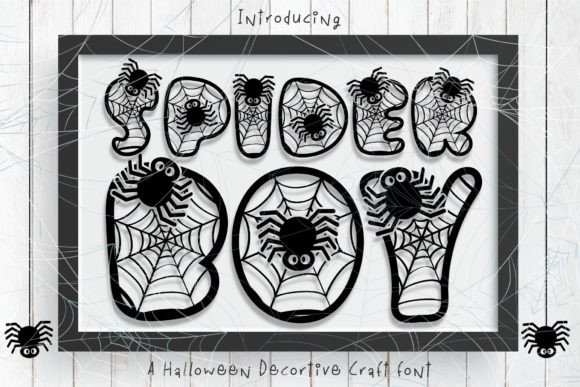
Introducing Spider Boy Font - the ultimate choice for all your Halloween crafting needs! Created by the renowned Nobu Collections, this decorative font is a captivating blend of elegance and arachnid-inspired charm. Get ready to embark on a thrilling design journey with Spider Boy, where every letter weaves intricate web-inspired characters that will leave you spellbound.
With Spider Boy Font, your Halloween crafts will reach new heights of creativity. This unique typeface is specifically designed to capture the mystique of the season, allowing you to craft spooky delights and eerie designs that will send shivers down your spine. Imagine creating invitations that beckon guests into a haunted mansion, or labels that transform ordinary treats into wickedly delightful surprises.
Unleash your imagination and explore the endless possibilities that Spider Boy Font offers. Its distinctive web-inspired characters lend an air of intrigue to any project, making it the perfect choice for adding a touch of enchantment to your creations. Whether you're designing posters for haunted attractions or creating spine-chilling social media graphics, Spider Boy Font will ensure your message stands out with its mesmerizing presence.
But Spider Boy Font isn't just about aesthetics - it's also a highly functional typeface that excels in text wrapping. Its carefully crafted characters seamlessly wrap around your words, adding a dynamic and visually captivating element to your designs. Say goodbye to boring, traditional fonts and embrace the excitement of Spider Boy Font as it wraps your text in a web of creativity and style.
Designed with the user in mind, Spider Boy Font is incredibly versatile and user-friendly. Its easy-to-read characters ensure that your messages are conveyed effortlessly, while its compatibility with various design software makes it accessible to designers of all levels. Whether you're a seasoned professional or just starting your design journey, Spider Boy Font will empower you to create stunning visuals that leave a lasting impression.
So, why wait? Embrace the captivating elegance of Spider Boy Font and elevate your Halloween designs to new heights. Let the enchanting web-inspired characters mesmerize your audience and bring your imagination to life. With Spider Boy Font, you have the power to transform ordinary projects into extraordinary works of art. Get ready to craft, create, and captivate with Spider Boy Font - the best font for text wrapping and an essential tool for every Halloween enthusiast.